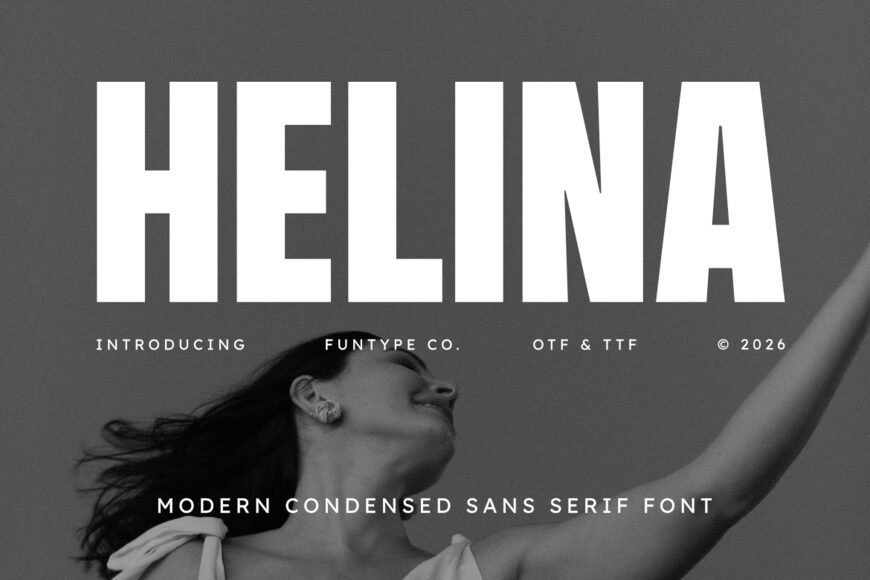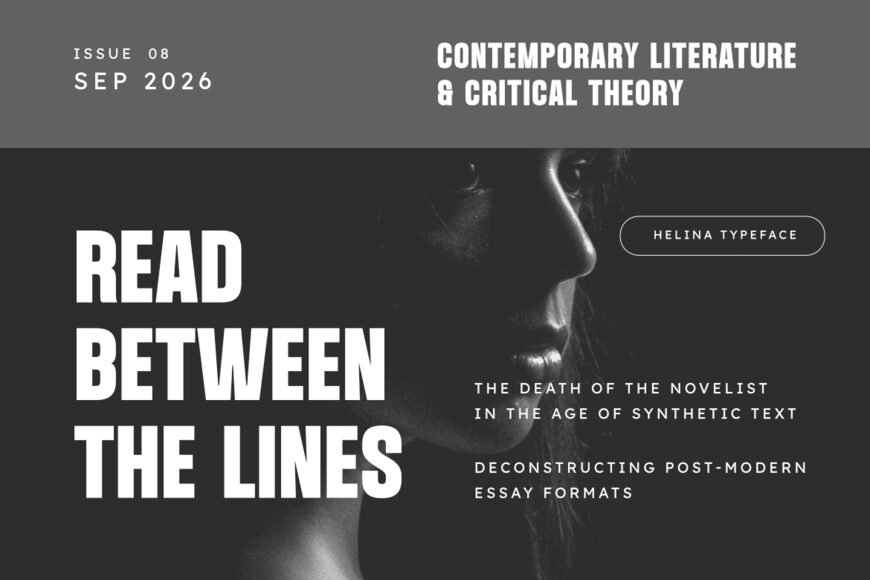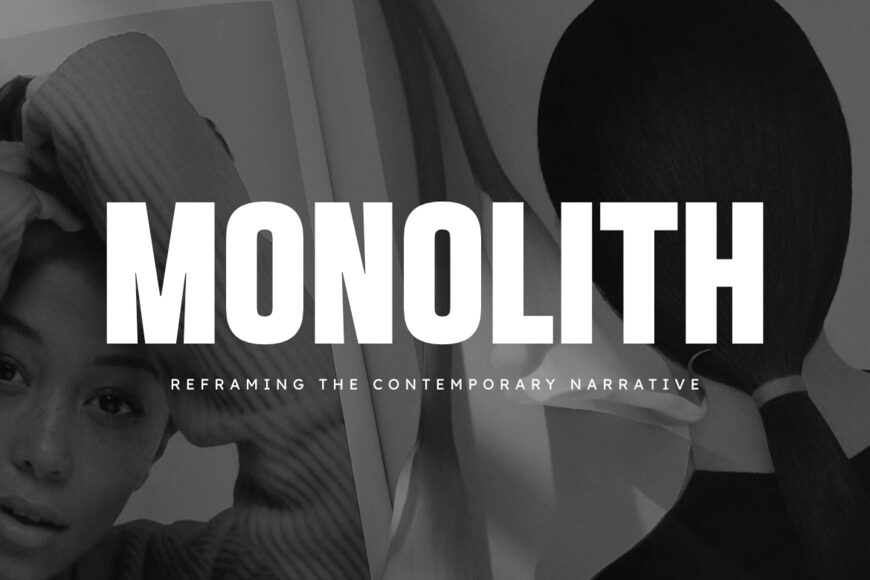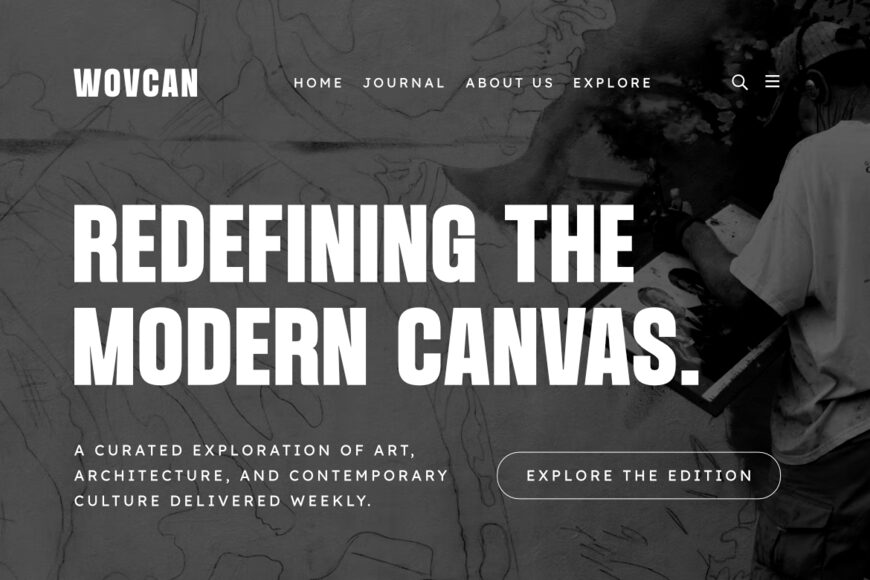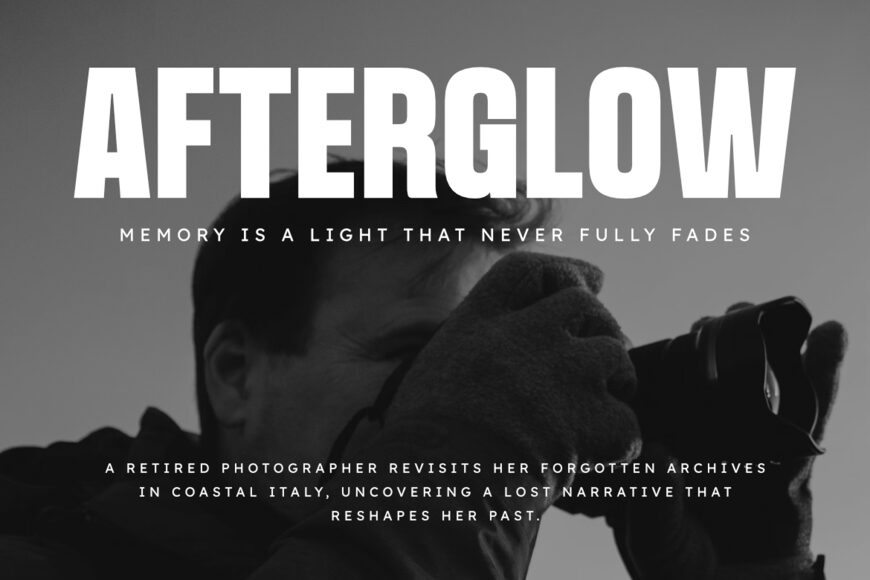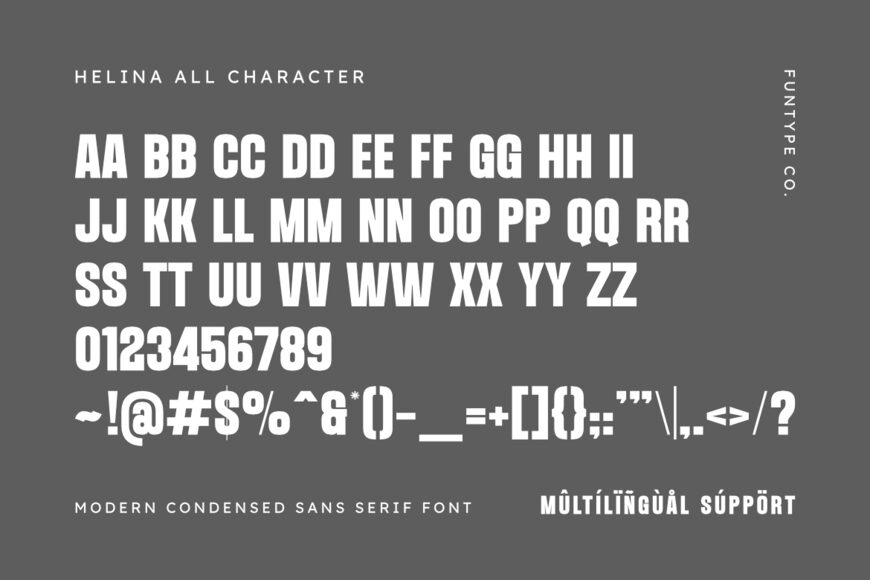
Helina Font
Helina is a sophisticated, bold, and modern condensed sans serif font, engineered to bring an elegant editorial presence, tall space-saving geometry, and high-end display aesthetic to contemporary graphic layouts.
Featuring a sleek vertical profile, heavy block proportions, and sharp angular notch cutouts, Helina introduces a luxury magazine presence, premium cosmetic branding, high-concept architectural identity, and prominent digital media presentation designed to claim absolute visual focus.